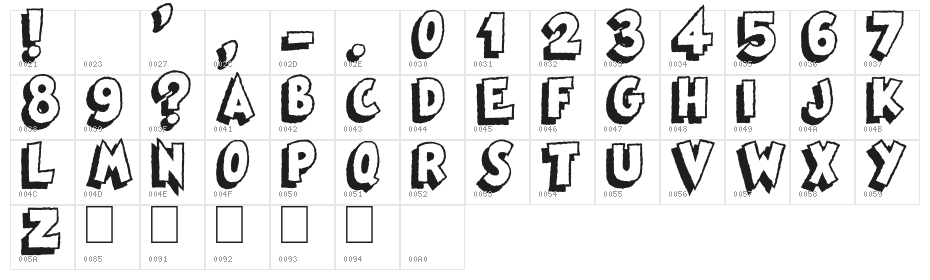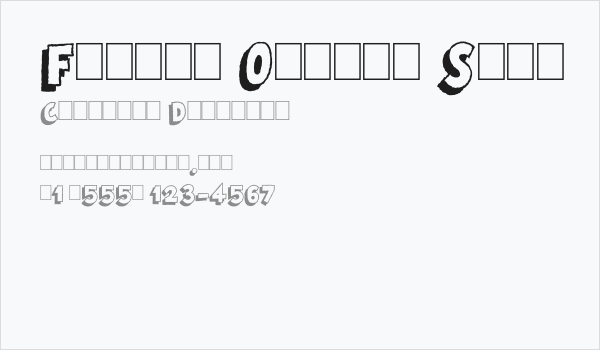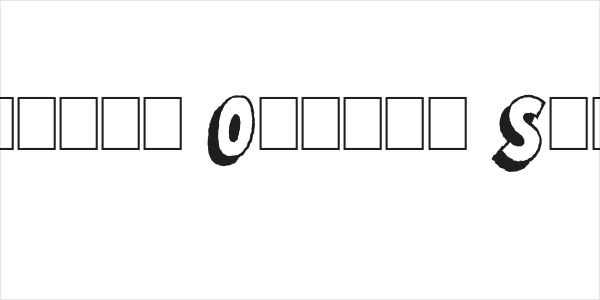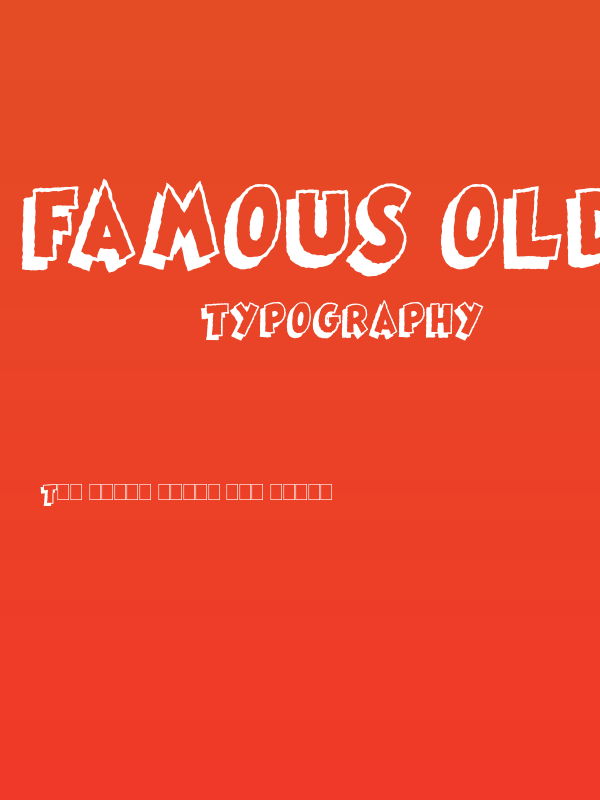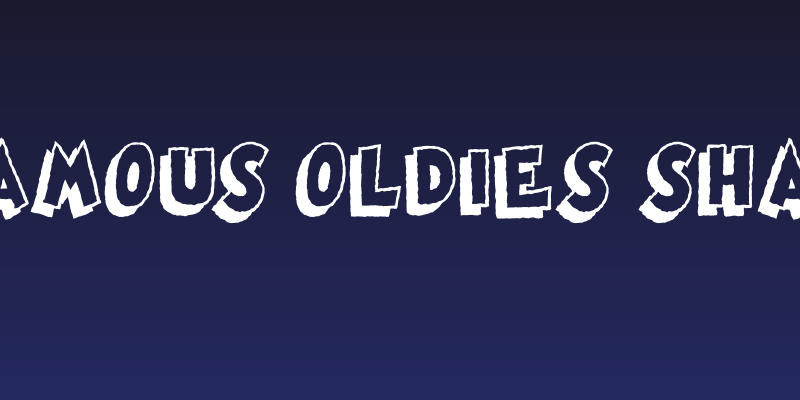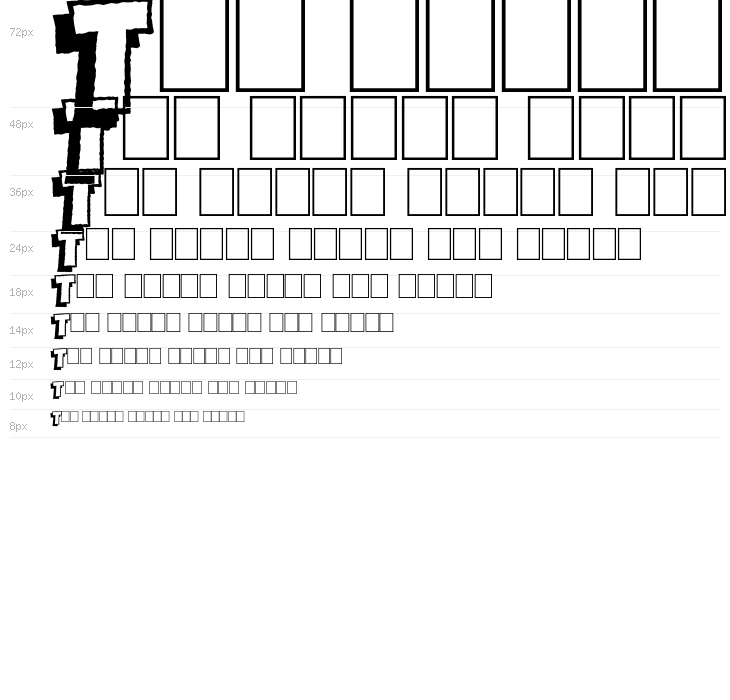
Famous Oldies Shad Font
Famous Oldies Shad Description
This font features a bold, playful design with a distinct shadow effect that gives it a three-dimensional appearance. The letters are uppercase, with a slightly irregular, hand-drawn style that adds a sense of whimsy and fun. The characters are thick and robust, making them highly visible and impactful. The shadow effect is consistent across all characters, enhancing the overall dynamic look. The numbers follow the same style, maintaining uniformity throughout the font. This font is ideal for projects that require a lively and engaging aesthetic, such as children's books, comic strips, or playful branding.
| Overall Style | Playful, Dynamic |
| Use Case | Headlines, Posters, Branding |
| Proposed Projects | Ideal for children's books, comic strips, playful branding, and eye-catching posters. |